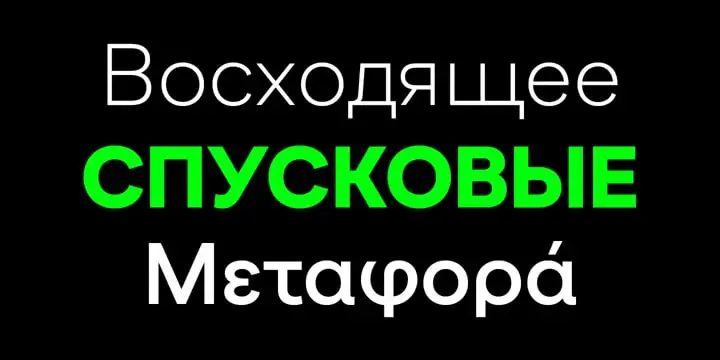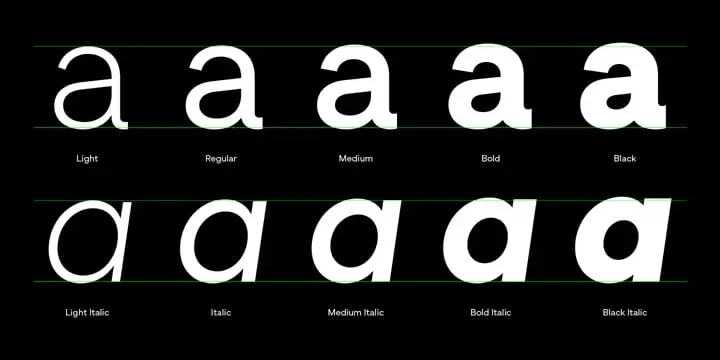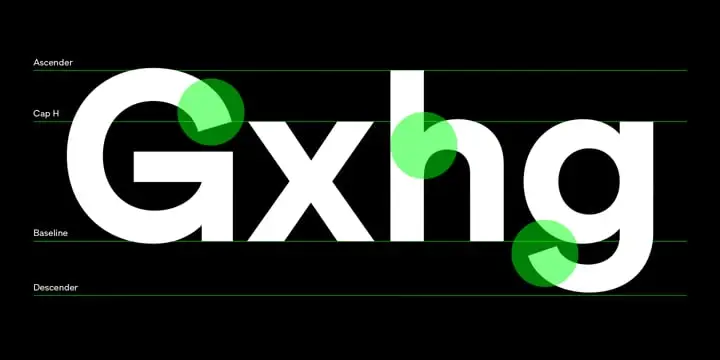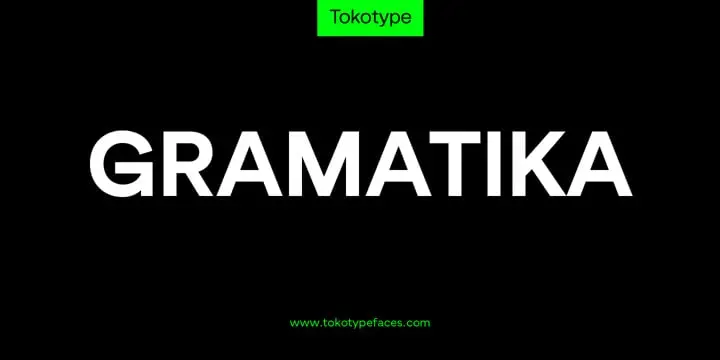
Gramatika 3 004 Font Cyrillic
Introducing the Gramatika 3 004 Font Cyrillic, a versatile typeface designed specifically for Cyrillic scripts. This font combines modern aesthetics with legibility, making it suitable for a variety of applications.
The Gramatika 3 004 Font features a clean and contemporary design, available in multiple weights to suit your project needs. It supports a wide range of Cyrillic characters, ensuring that your text is both visually appealing and functional.
• Ideal for branding and logo design.
• Perfect for print materials such as brochures and flyers.
• Great for web design, ensuring readability across devices.
• Use in UI design for a modern look.